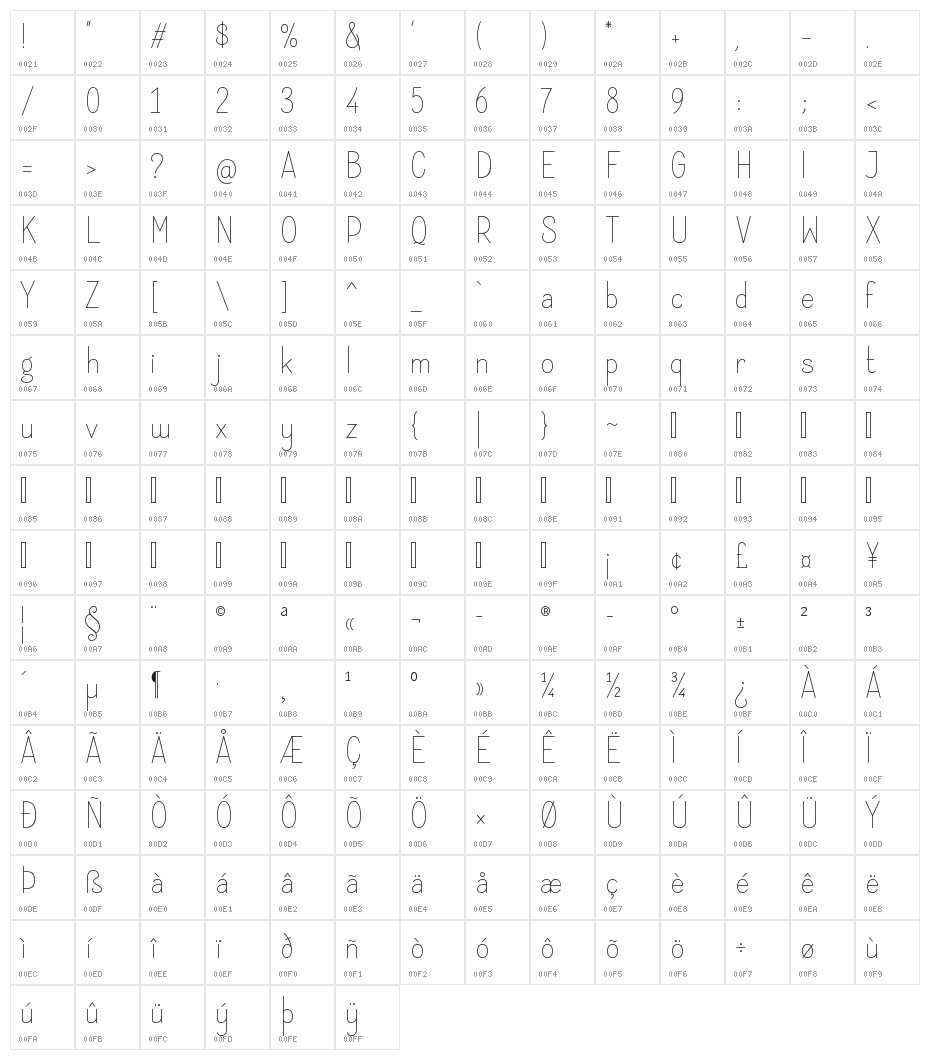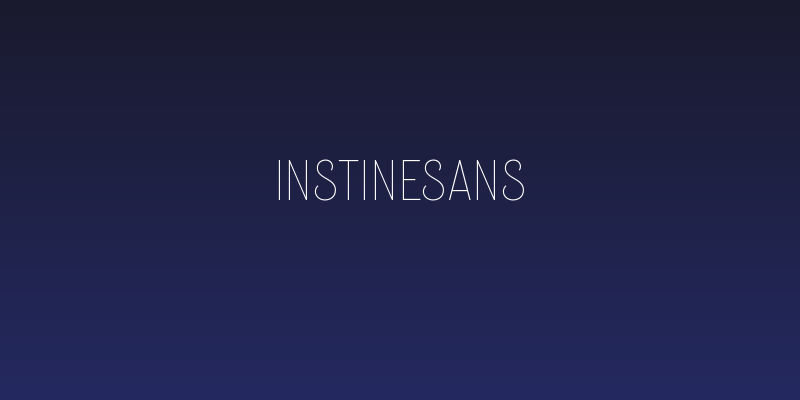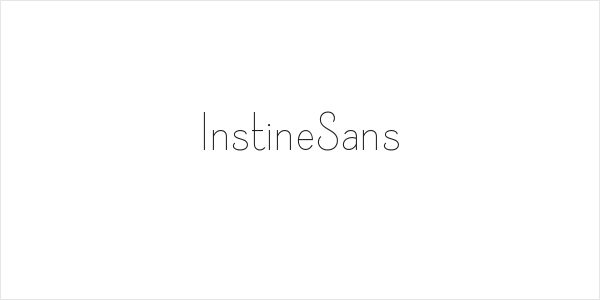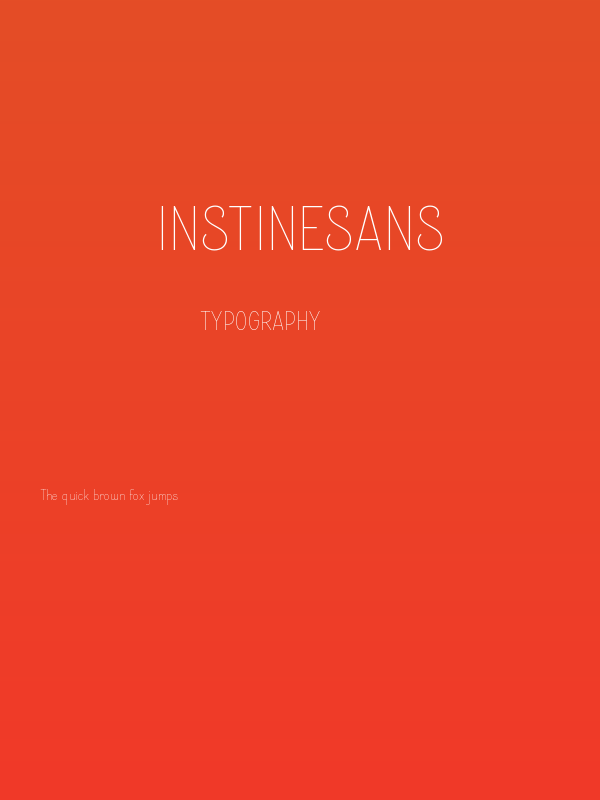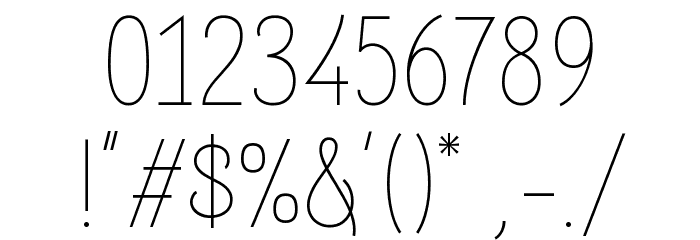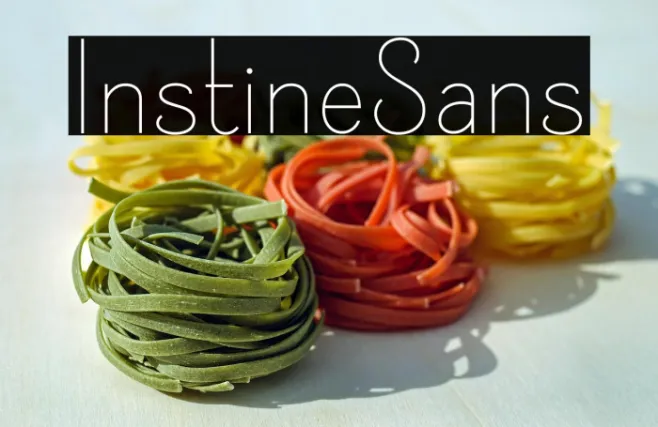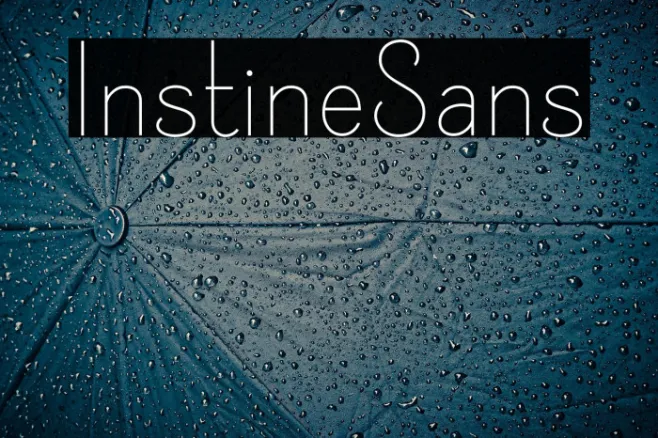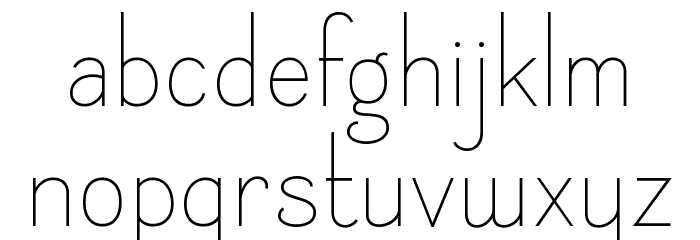
InstineSans Font
InstineSans Description
This font features a clean and modern sans-serif style with a geometric structure. The characters are uniform in width, providing a balanced and harmonious appearance. The lines are thin and consistent, offering a sleek and minimalist look. The uppercase and lowercase letters maintain a uniform height, contributing to its readability. The numerals are clear and straightforward, matching the overall aesthetic. Special characters are well-defined, enhancing the font's versatility for various applications.